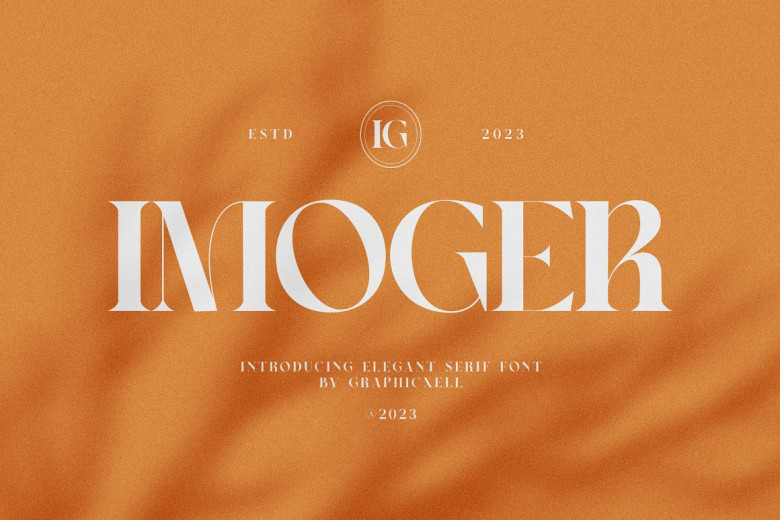
Imoger Font
Imoger is an elegant serif typeface perfect for logo and branding designs, featuring chic contemporary lines. Perfectly suitable for logo and branding projects as well as wedding themes, advertisements, social media posts packaging for products, watermarks invitations or stationery projects with accessibility as a top priority, you won’t be disappointed when purchasing Imoger!!
Imoger Serif Font